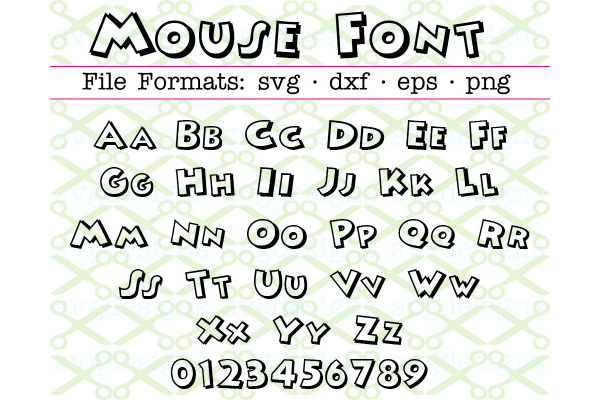
MOUSE SVG FONT, In File Formats SVG, DXF, EPS & PNG. Upper case & smaller version as "lower case" - monogram letters as shown in ad picture. Also includes numbers. Shadow outline, inside cut out is clear.